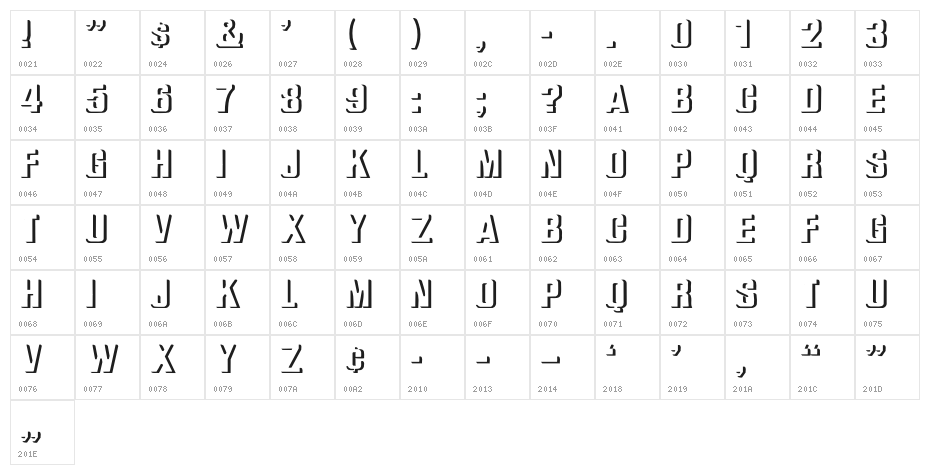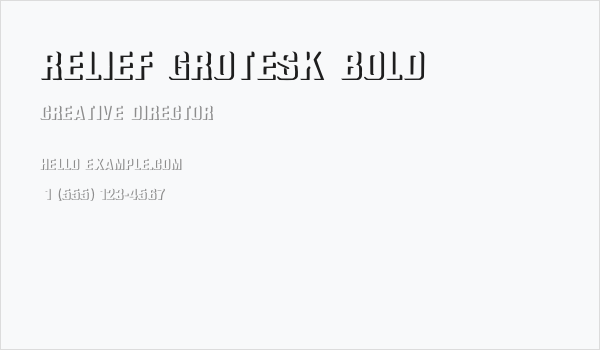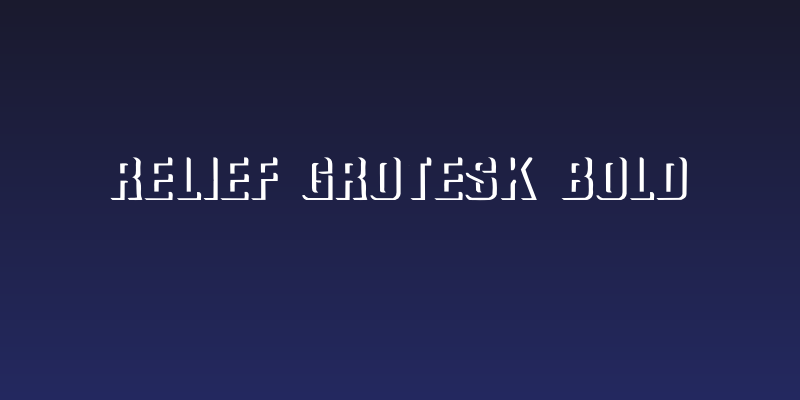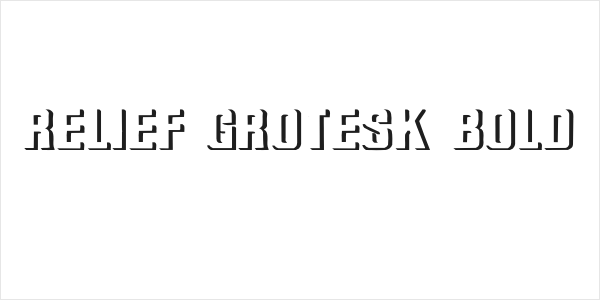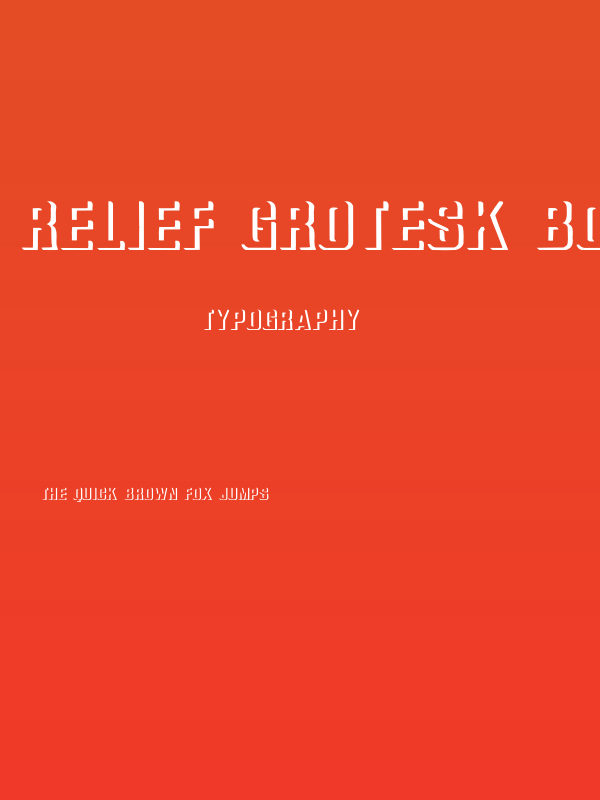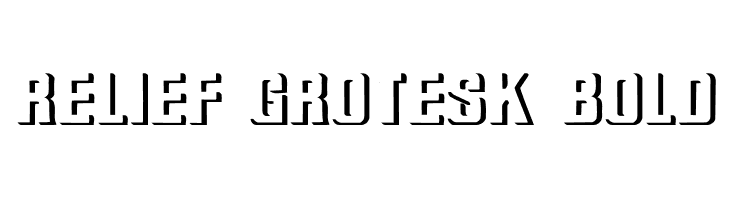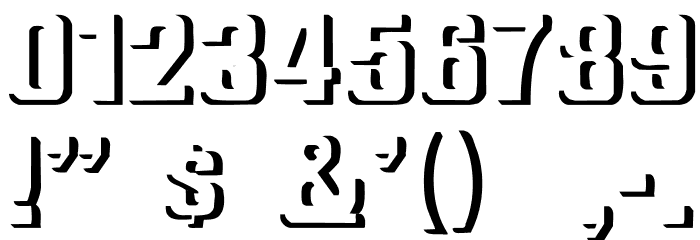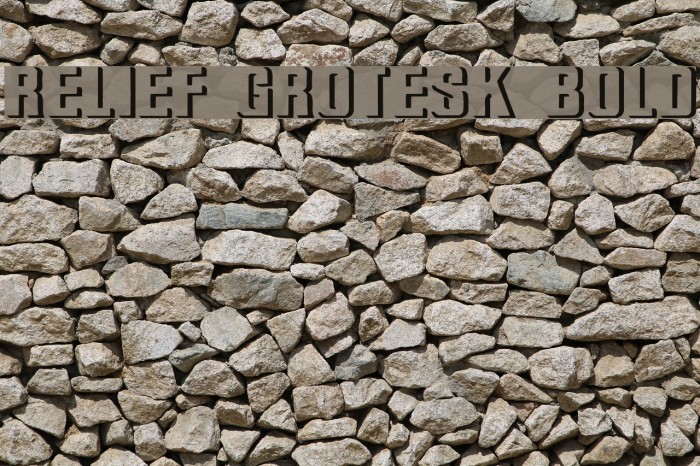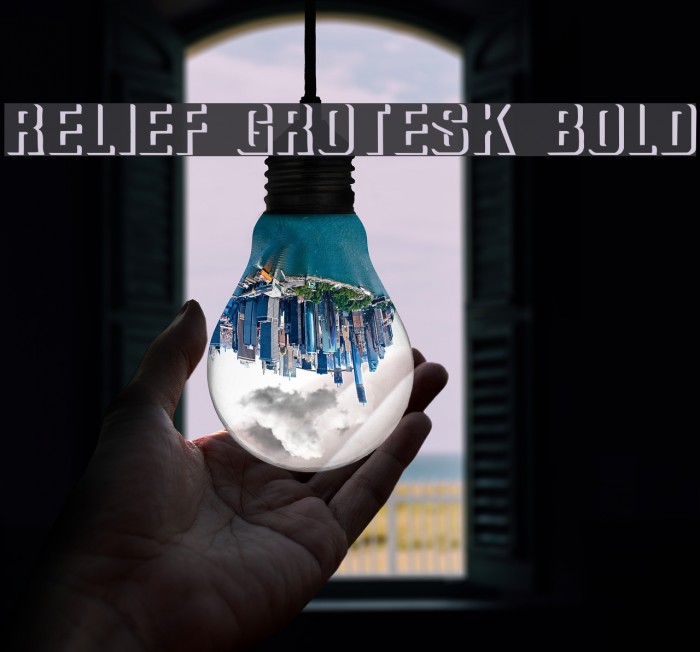
Relief Grotesk Bold Font
Relief Grotesk Bold Description
This font features a bold, three-dimensional appearance with a distinct shadow effect that gives it a sense of depth and dimension. The characters are uppercase and numerals, with a strong, geometric structure that emphasizes clarity and impact. The design is reminiscent of industrial or stencil styles, making it suitable for projects that require a bold statement. The spacing between characters is normal, allowing for easy readability while maintaining its striking visual presence. The font's unique style makes it ideal for use in headlines, posters, and signage where attention-grabbing text is essential.
| Use Case | Headlines, Posters, Signage |
| Proposed Projects | Suitable for posters, signage, branding, and any project requiring a bold, industrial aesthetic. |